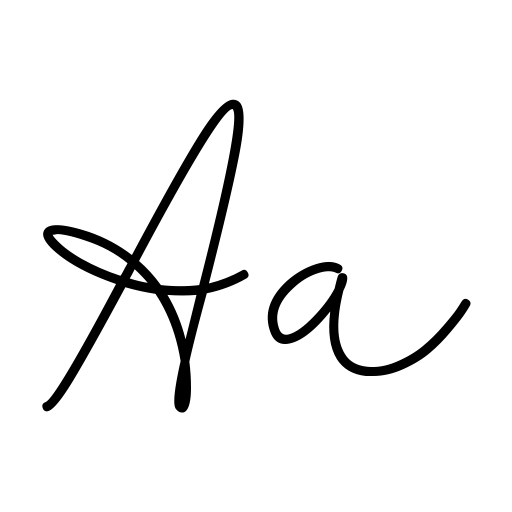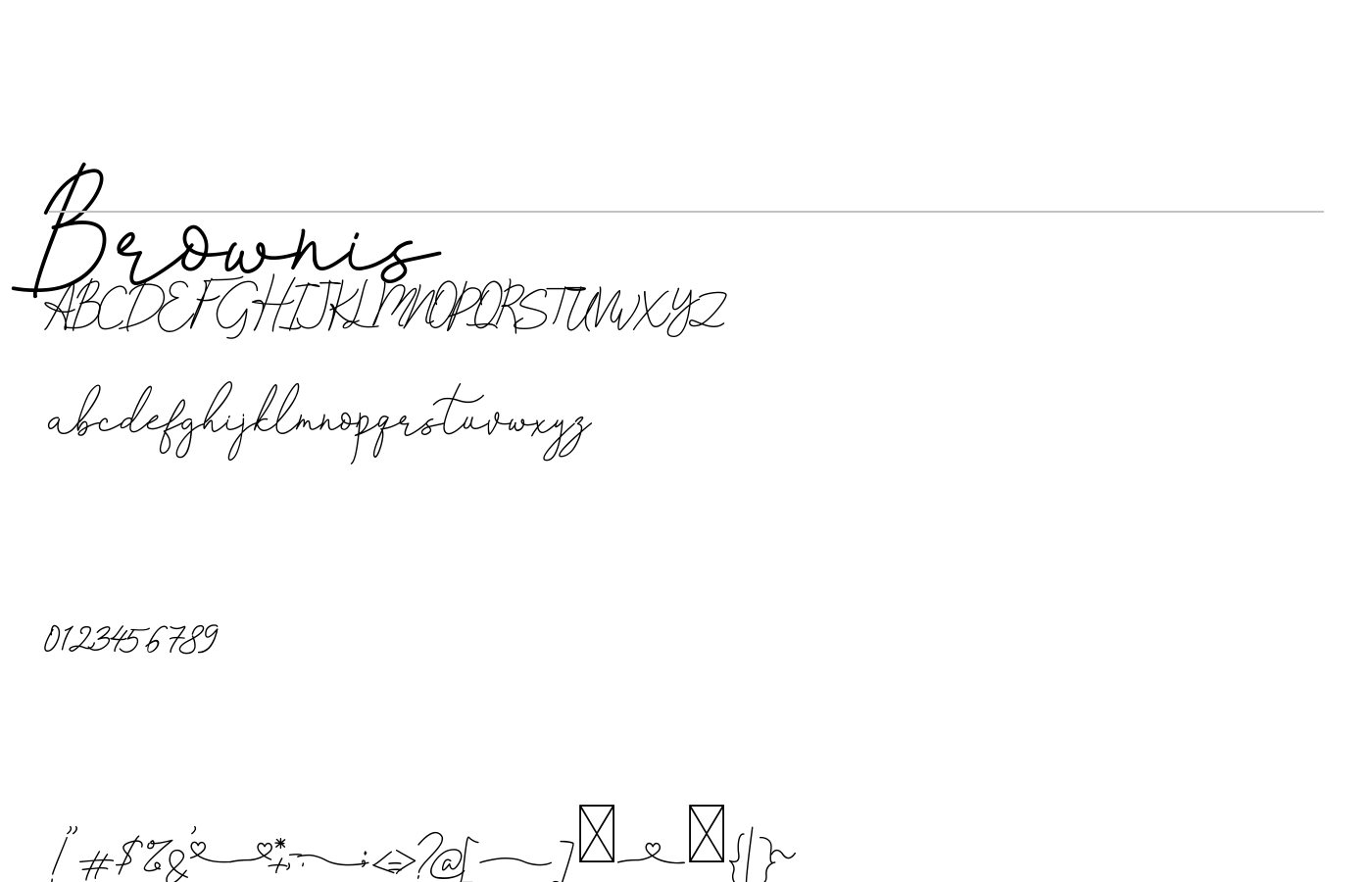
Brownis is a delicate, thin script font with elegant, flowing lines that give it a personal, handwritten feel. Its light weight and graceful letterforms make it perfect for romantic, feminine designs, such as wedding invitations, fashion branding, or stylish editorial projects where a touch of sophistication and warmth is desired.
Brownis Font
About Brownis Font